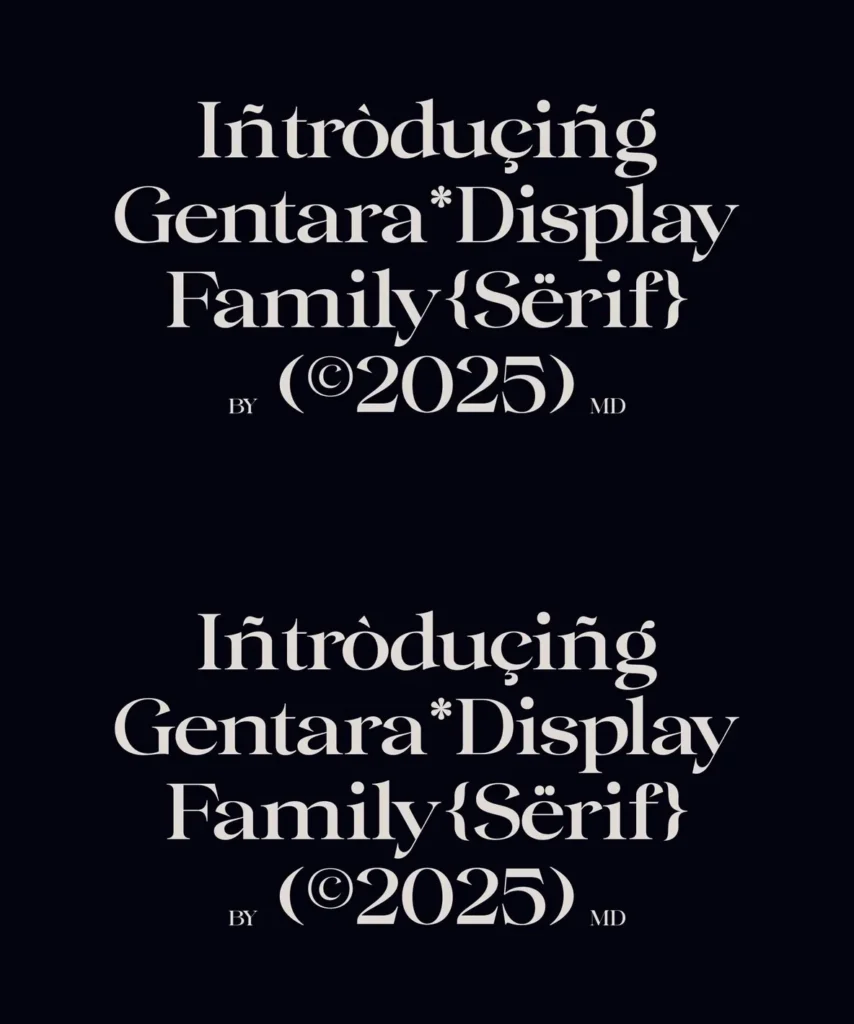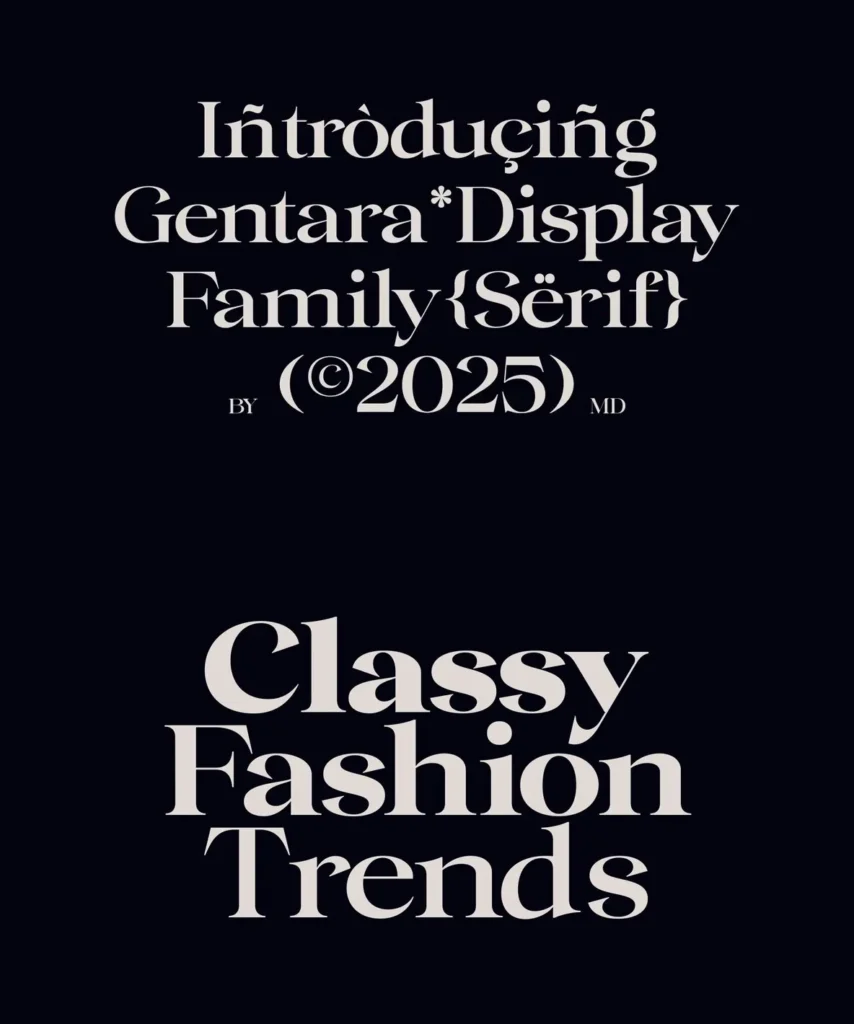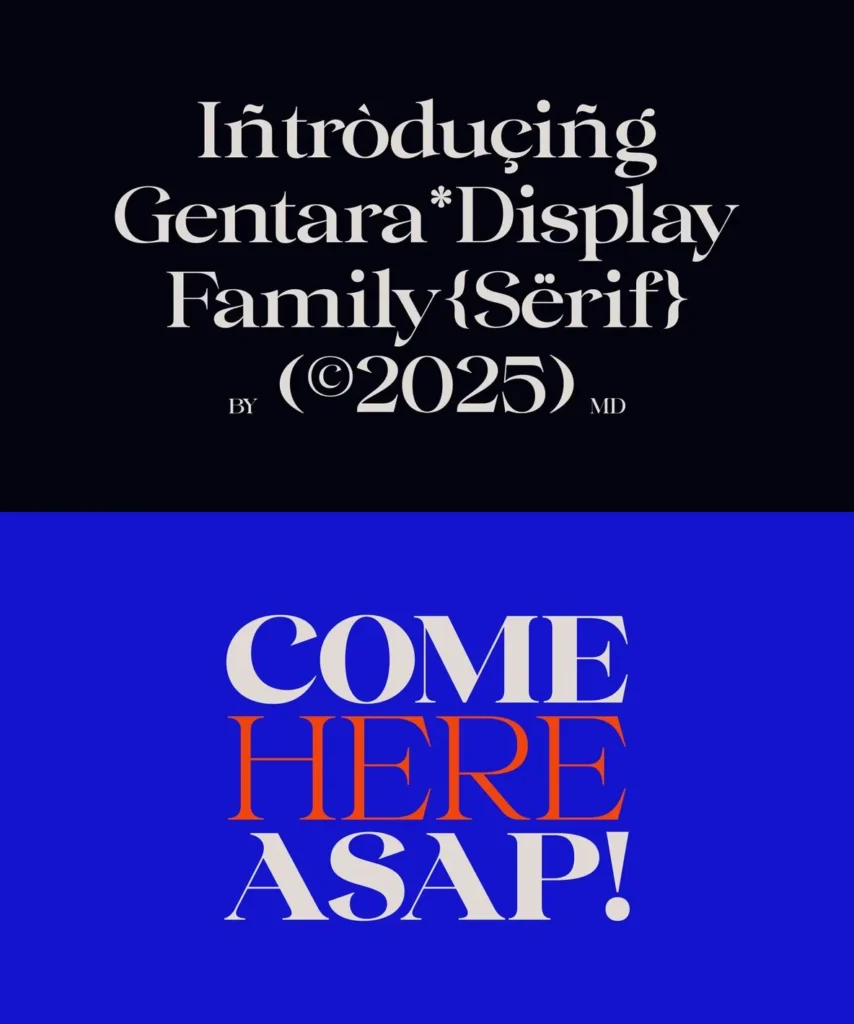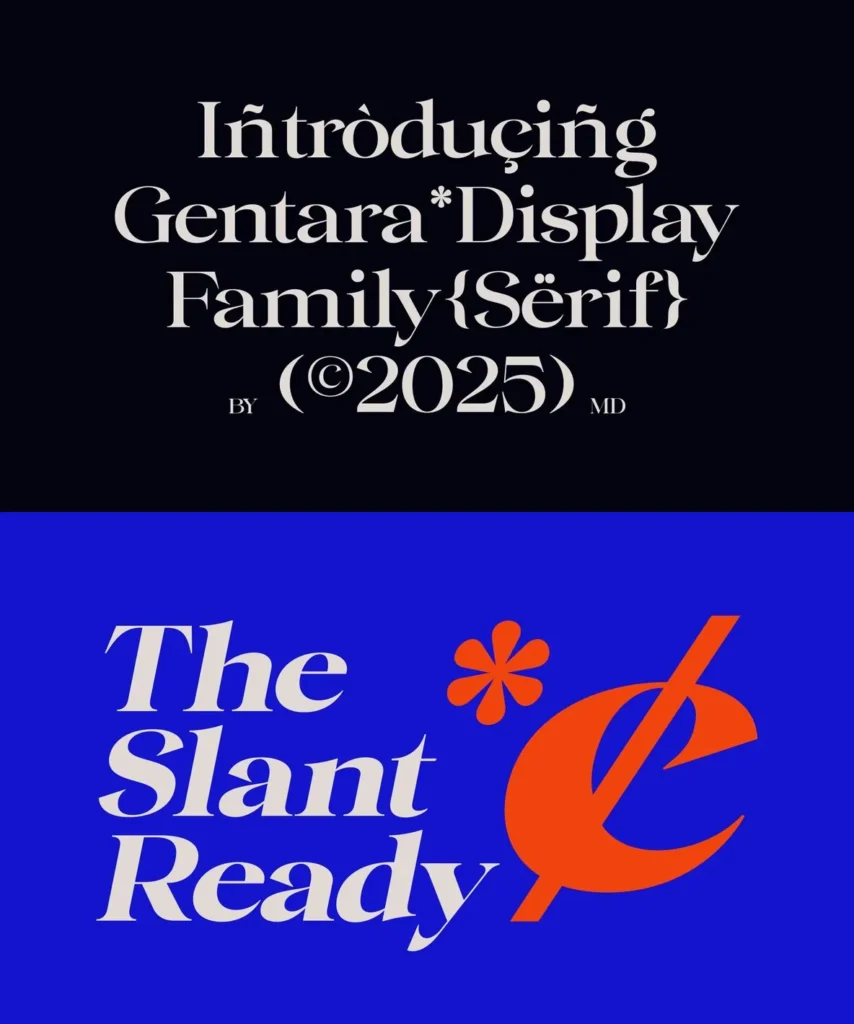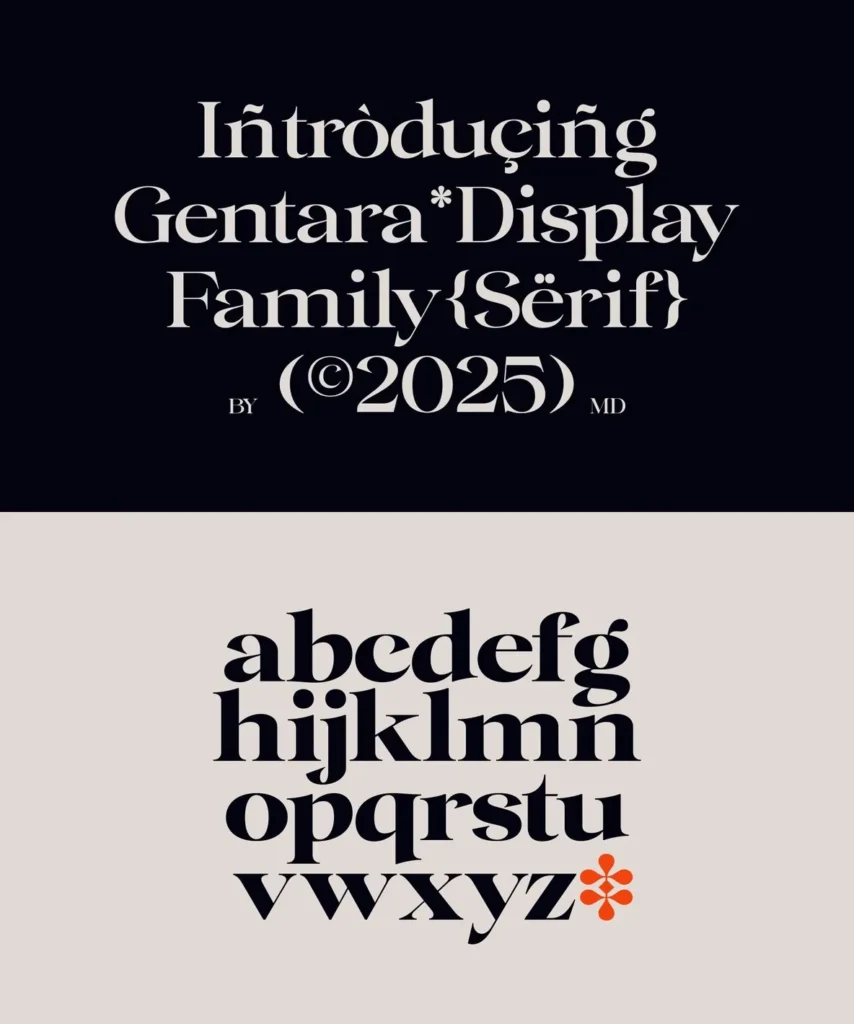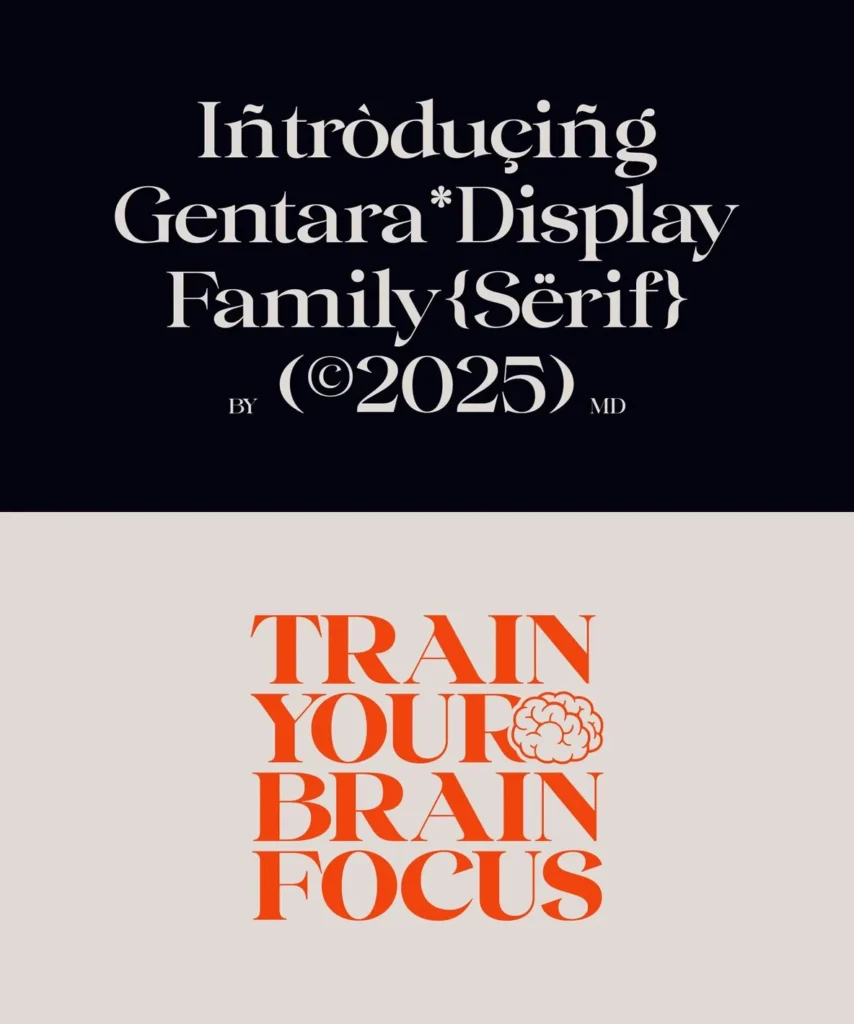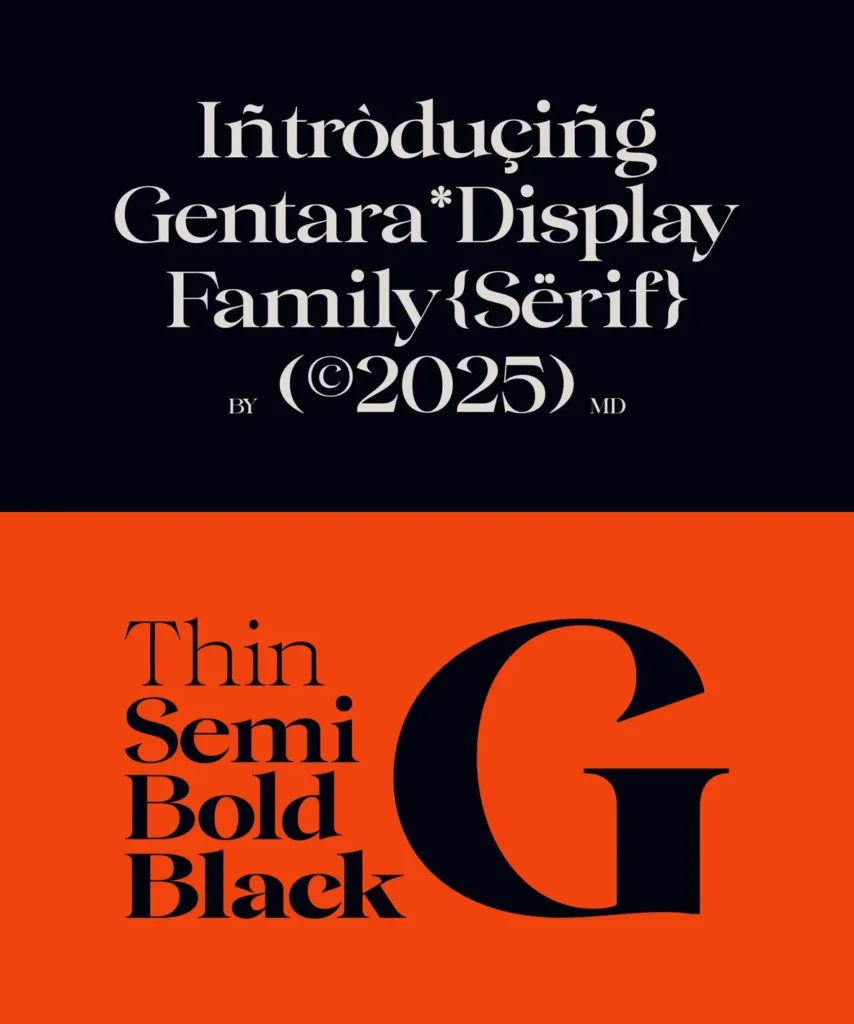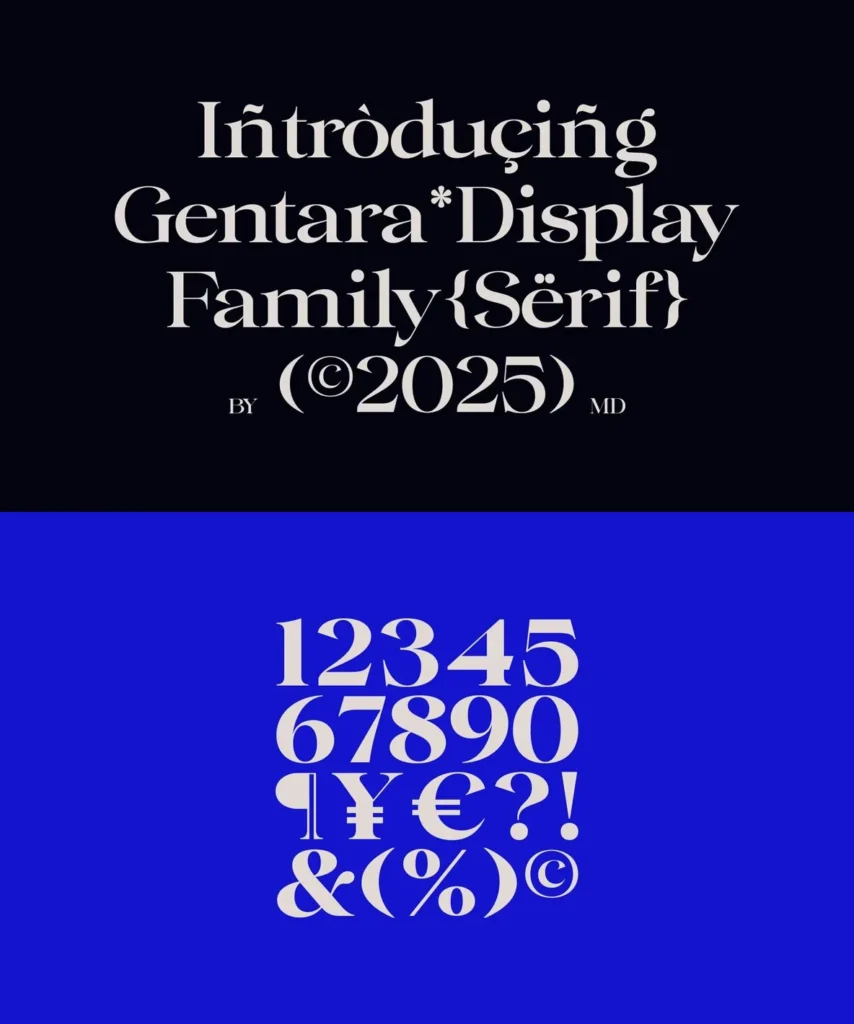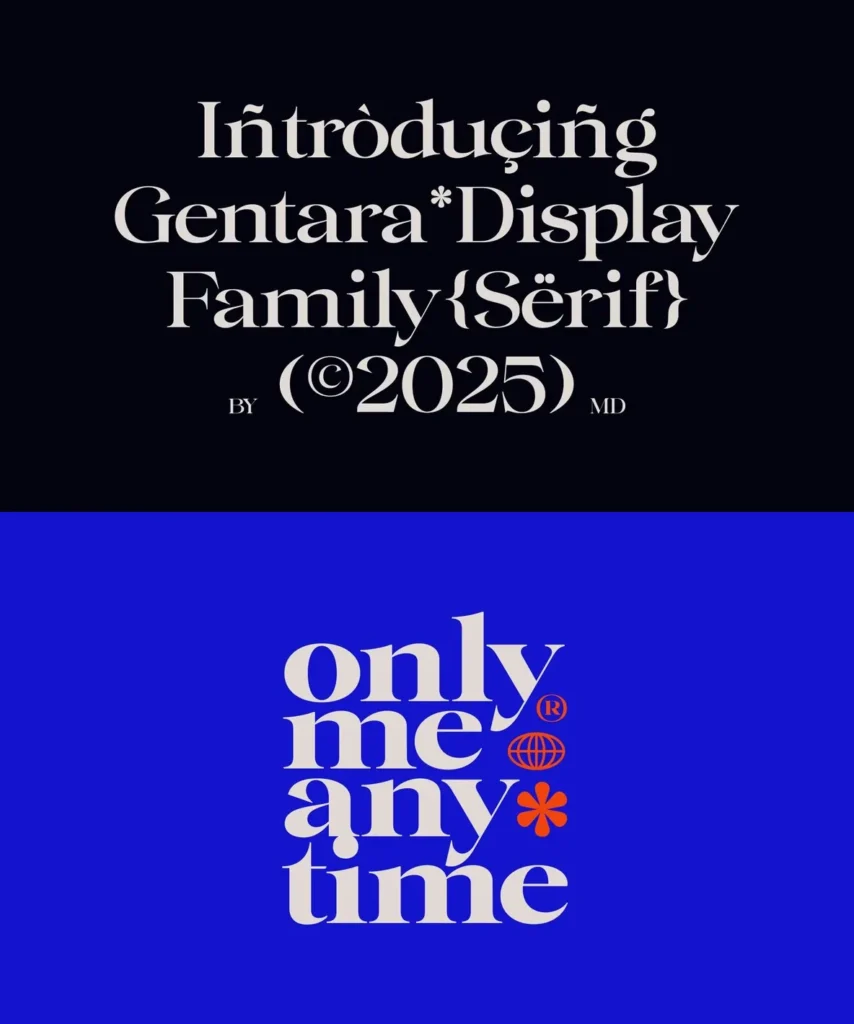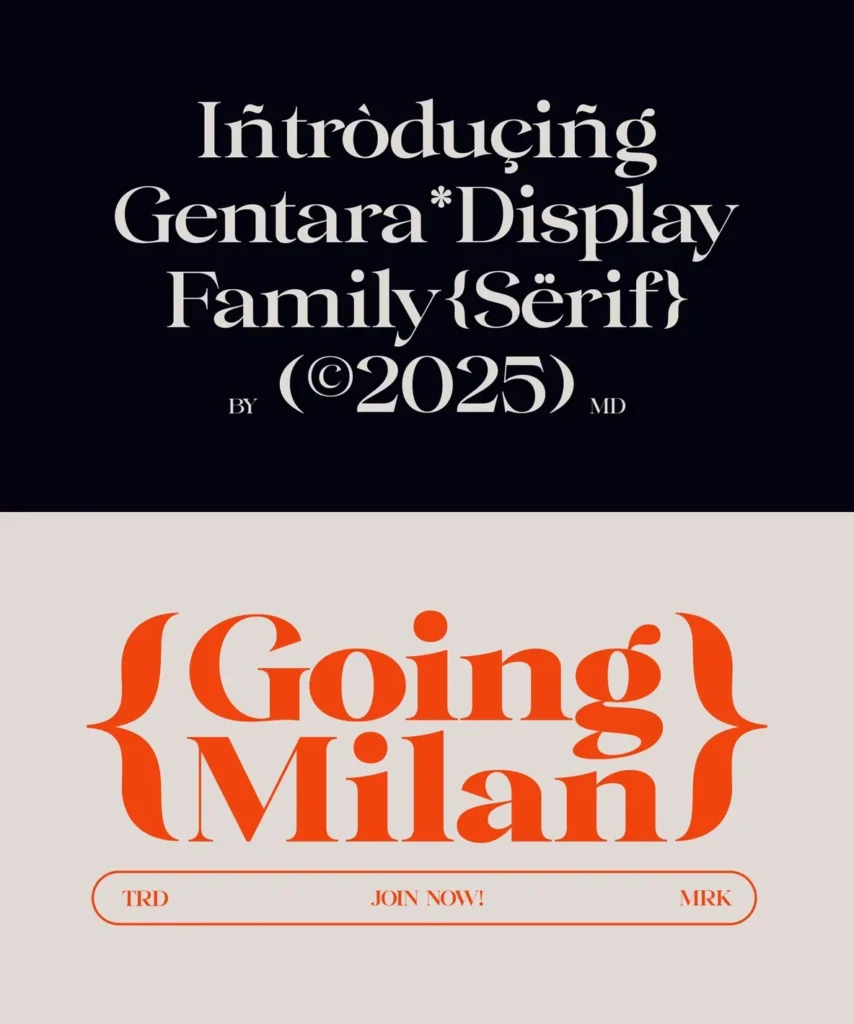
Gentara Font
Gentara: Striking Contrast, Modern Poise
A modern interpretation of the classic serif, Gentara balances elegance with a distinct personality. Designed by Marvadesign, this display font family includes 18 styles, each shaped with prominent contrast and sculpted terminals. Italic variations add expressive range, giving designers flexible options for typography that needs presence and a contemporary edge.
Sharp curves and refined details keep the family versatile across applications. Use it to set the tone for a fashion campaign, bring sophistication to editorial headlines, or add character to branding and lifestyle design work. Gentara reads as dramatic yet balanced, and its stylistic variety supports both commanding statements and quieter, refined layouts.
Features
18 styles, including elegantly crafted italic variations
High-contrast strokes with modern curves
Distinctive stylistic details and terminals
Well-suited for editorial, branding, and lifestyle design projects
Befitting for both bold statements and refined layouts